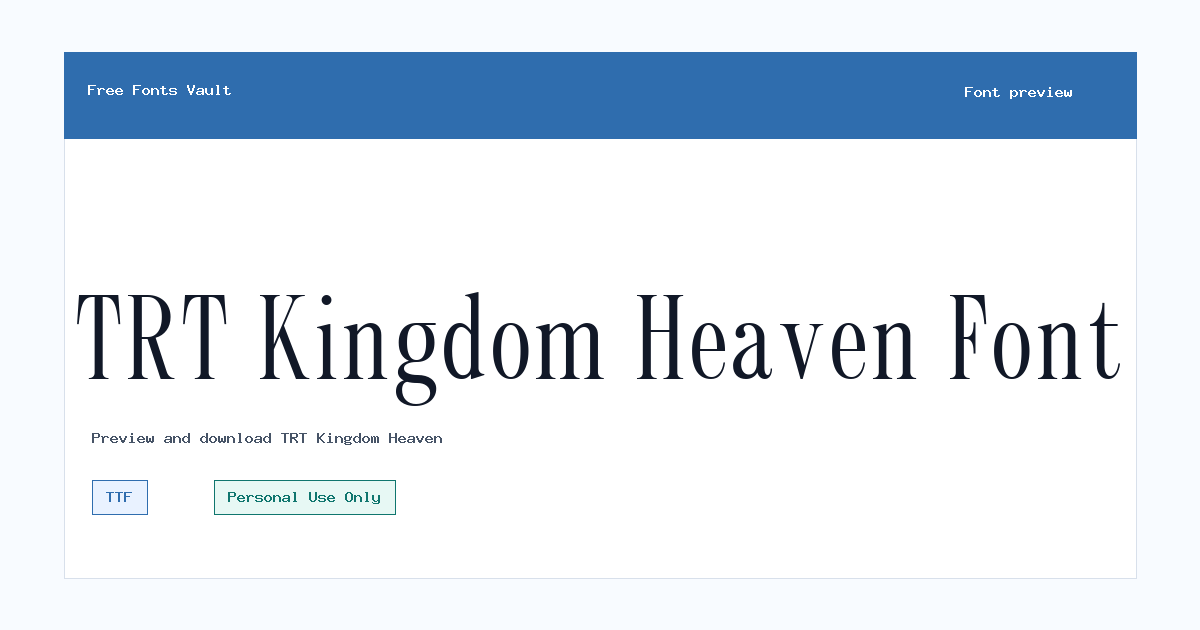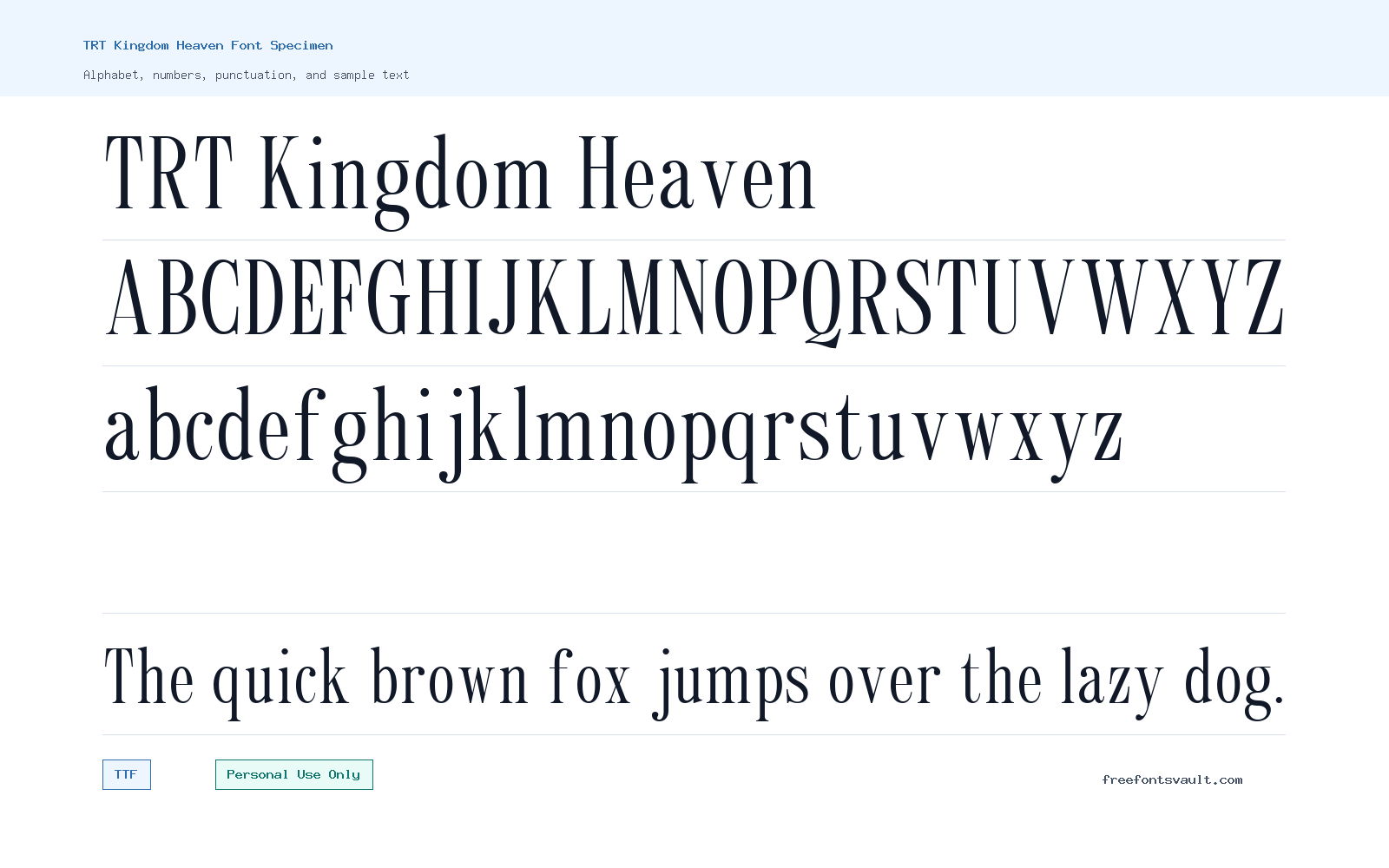
TRT Kingdom Heaven
TRT Kingdom Heaven font preview showing the family name
TRT Kingdom Heaven Font
TRT Kingdom Heaven font specimen showing alphabet, numbers, and sample text
TRT Kingdom Heaven font.
TRT Kingdom Heaven is a serif font family offered here as demo TTF files for personal use. It is useful for testing elegant headings, title layouts, and short display text before deciding whether it fits a finished project.
About TRT Kingdom Heaven
TRT Kingdom Heaven gives visitors a serif option to try in the font preview tool, with multiple demo files rather than a single static style. The available files cover a regular style, an italic style, a bold style, and a BoldIta-named TTF file, so you can compare upright, slanted, and heavier text treatments while building a layout. For the most reliable result, type your own words into the previewer and inspect how the letters behave at the size you plan to use.
This font is best approached as a display and headline test font, especially for names, titles, invitations, quote graphics, branding mockups, and social posts made for personal projects. Try it with short phrases first, then check longer lines for spacing and readability. Serif fonts can look polished in large text, but they may need more careful sizing and contrast when used in small captions, dense paragraphs, or mobile graphics. If you plan to use the design in client work, products, ads, logos, merchandise, or any revenue-related project, confirm the proper commercial license before using it in that project.
• Serif font family listing suitable for previewing title text, headings, and short decorative copy.
• Personal invitation drafts, quote images, posters, and social media graphics.
• Testing serif headline styles for names, titles, mock branding, and layout concepts.